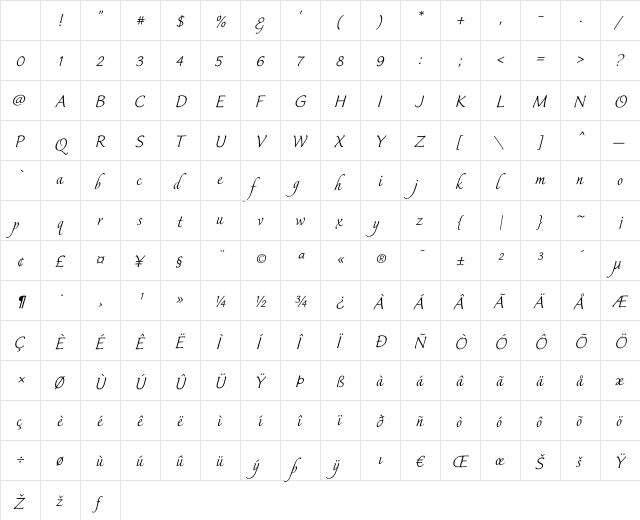
Italican Script flows with the natural rhythm of handwritten lettering, making it ideal for designs that call for warmth and personal expression.
Font Pairing: Combine Italican Script with a simple geometric sans for maximum contrast - the tension between flowing curves and clean structure is a classic typographic pairing.
Pro Tip: Use Italican Script for short runs of text - names, titles, or taglines. Extended body copy in script faces tires the eye quickly.